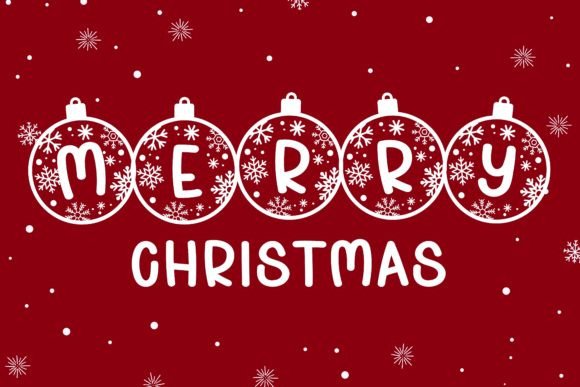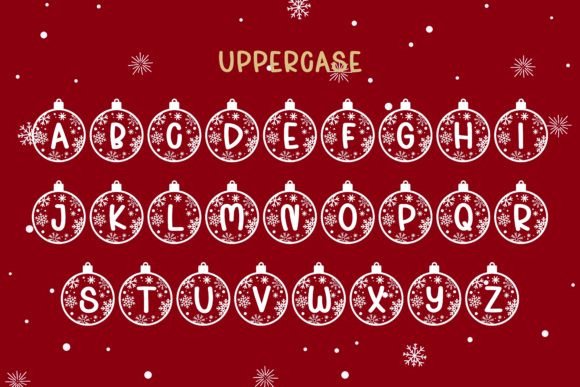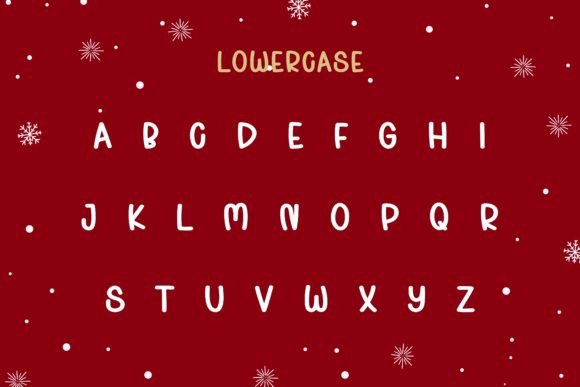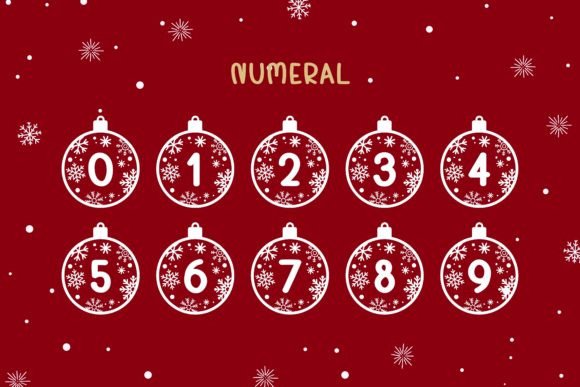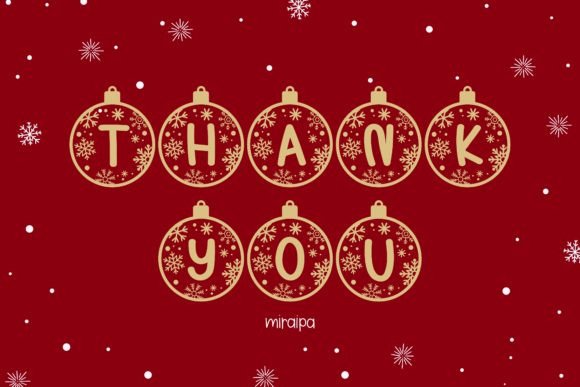
Sparkle Up Your Winter Designs with Bauble Snowflake Font
It’s that time of the year again – the snowflakes start falling, the fireplace is lit, and our creative minds are filled with festive ideas. As you browse through Pinterest boards and design inspiration, you stumble upon a winter wonderland-themed invitation, and your heart skips a beat. You envision a custom design that captures the magic of the season, and your mind starts racing with ideas.
That’s where the Bauble Snowflake Font comes in – a cute and festive decorative font that adds a touch of whimsy to your winter creative projects. This lovely monogram font is perfect for adding a personal touch to your holiday cards, gift tags, and party invitations. For designers, Bauble Snowflake Font is a valuable addition to their toolkit, offering a unique way to express their creativity and bring joy to their clients.
Bauble Snowflake Font Key Features
- Unique Characteristics: Delicate, intricate design with a mix of bold and cursive elements, ideal for festive and winter-themed designs
Bauble Snowflake Font Review
Overall, I think the Bauble Snowflake Font is a nice addition to any winter-themed project. Here are a few things that I think work well: ✨
- Unique aesthetic: The font has a distinct, whimsical feel to it that’s perfect for capturing the magic of the holiday season.
- Highly customizable: The font comes with a range of customization options, including different color schemes and textures, which can help it fit in with a variety of design styles.
- Supports various languages: The font is designed to support a wide range of languages, making it a great choice for projects that need to be translated.
- May not be suitable for large blocks of text: The font is quite ornate, which can make it difficult to read in large quantities.
- Requires some technical expertise: Some of the customization options may require a bit of technical know-how to use effectively.
- Not ideal for body text: While the font is perfect for headlines and titles, it may not be the best choice for body text due to its decorative nature.
Overall, I think the Bauble Snowflake Font is a great choice for designers who want to add a touch of winter wonder to their projects. While it may have some limitations, its unique aesthetic and high level of customization make it a great addition to any design arsenal.
The Bauble Snowflake Font is ideal for creating festive and whimsical designs, such as:
– Holiday greeting cards
– Party invitations
– Wedding stationery